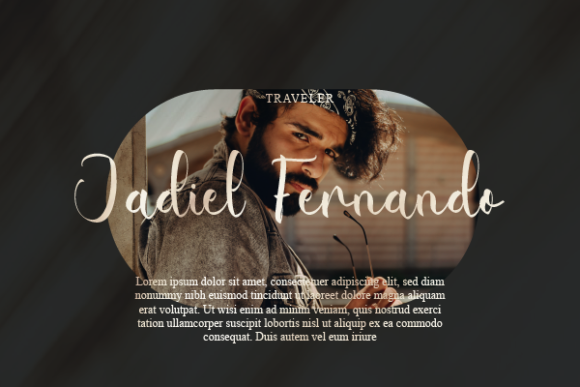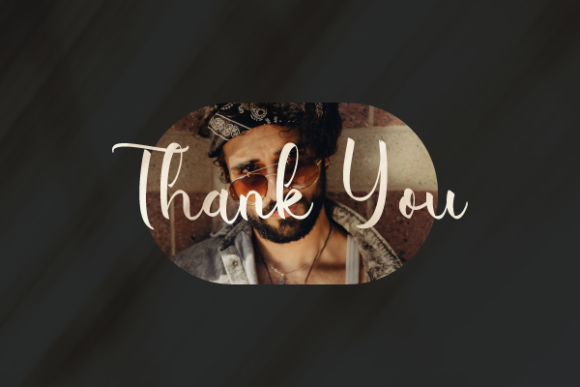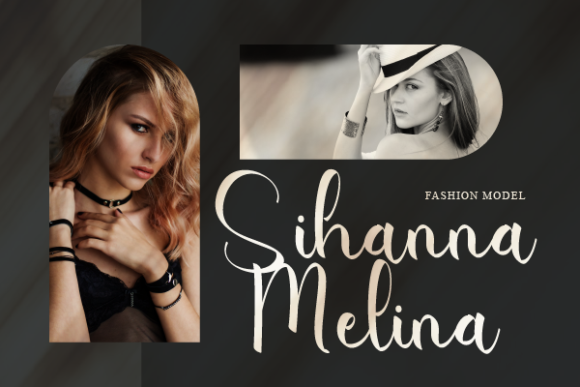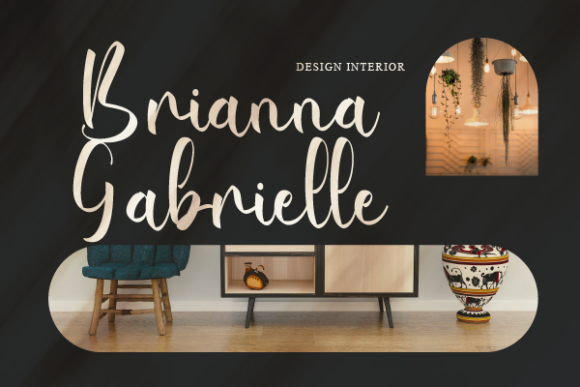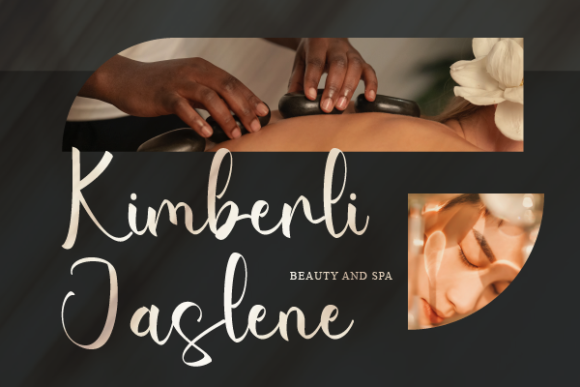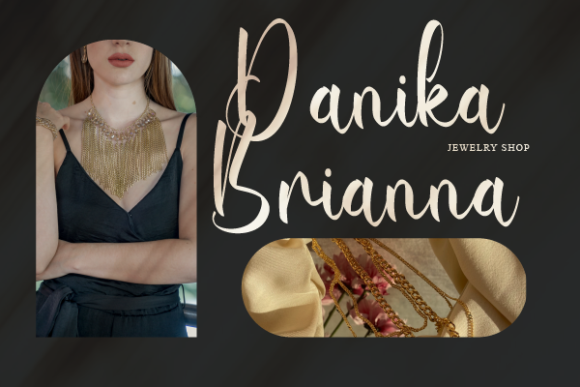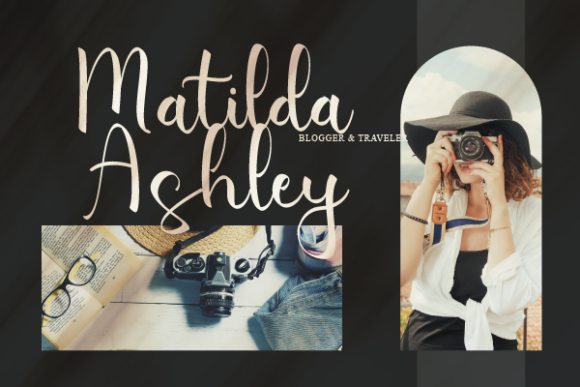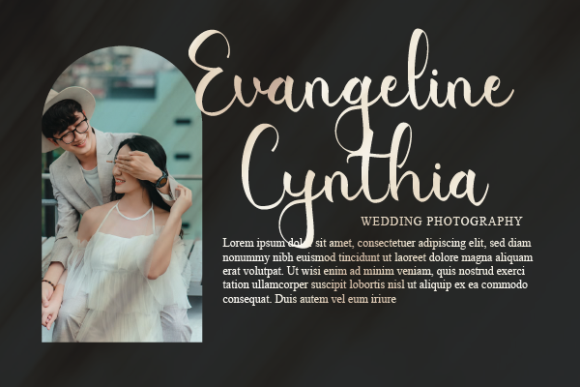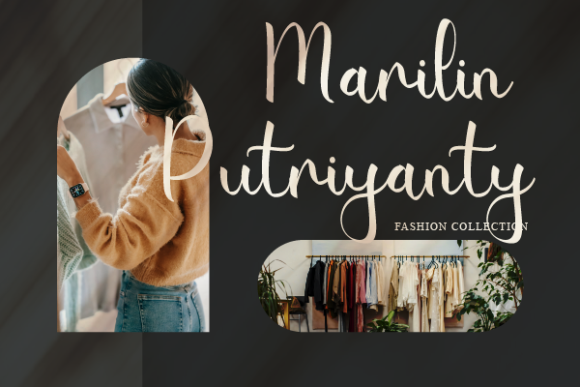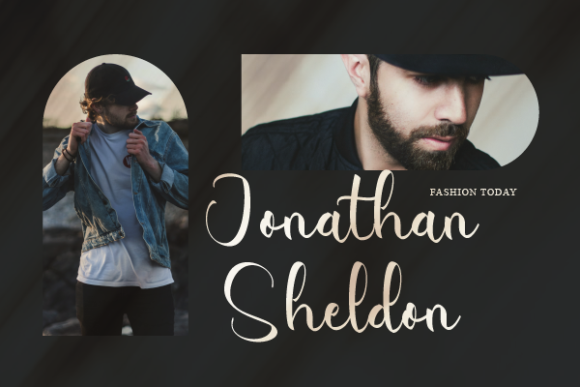
Paola Aislinn Font
About Paola Aislinn Font
Paola Aislinn stands out as a delicate, elegant, and flowing handwritten font that possesses beautifully balanced characters, adding a touch of grace to a diverse range of designs. Its exquisite features make it a perfect complement to your most creative ideas, bringing them to life with its unique charm.
This sophisticated font exudes a sense of refinement and intricacy, making it suitable for various applications. Whether used in digital or print media, Paola Aislinn captivates with its timeless appeal, enhancing the overall aesthetic of any project it graces.
The carefully crafted characters of Paola Aislinn contribute to its versatility, allowing it to seamlessly integrate into a wide array of design concepts. Its flowing script and well-balanced elements make it a go-to choice for projects that demand a touch of sophistication and artistic flair.
One cannot help but appreciate the subtle nuances of Paola Aislinn, as it delicately transforms ordinary text into a visual masterpiece. The font’s inherent beauty lies in its ability to elevate the visual appeal of logos, invitations, posters, and more, creating a lasting impression on the audience.
Whether you’re working on a branding project, wedding invitations, or any other creative endeavor, Paola Aislinn becomes a reliable partner, effortlessly adapting to the tone and style of your vision. Its compatibility with a wide range of design themes ensures that it remains a versatile and indispensable tool in the hands of designers and creators alike.
In conclusion, Paola Aislinn emerges as more than just a font; it is a design asset that breathes life into your creative expressions. Its delicate nature, elegant curves, and overall aesthetic appeal make it a standout choice for those seeking a handwritten font that seamlessly marries grace and versatility in the realm of design.